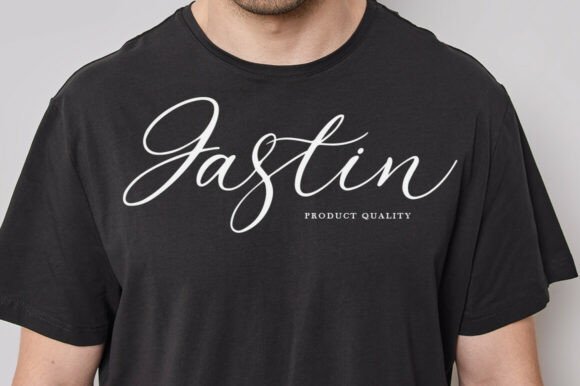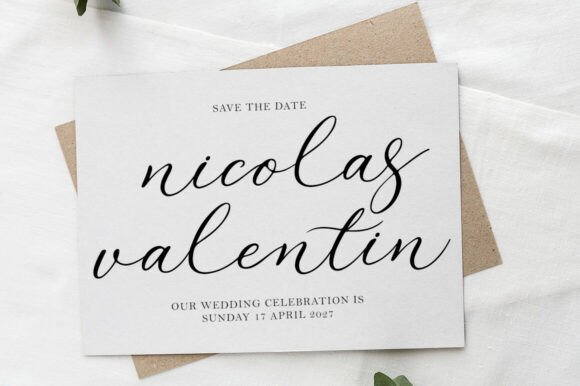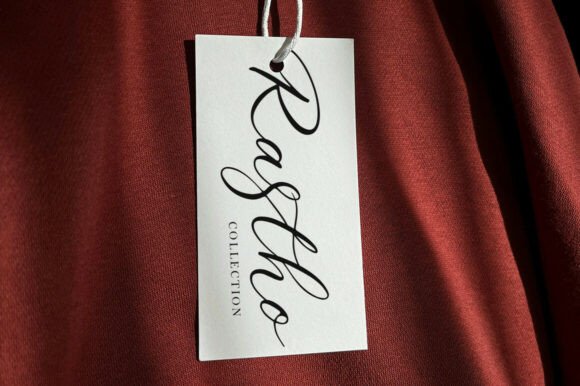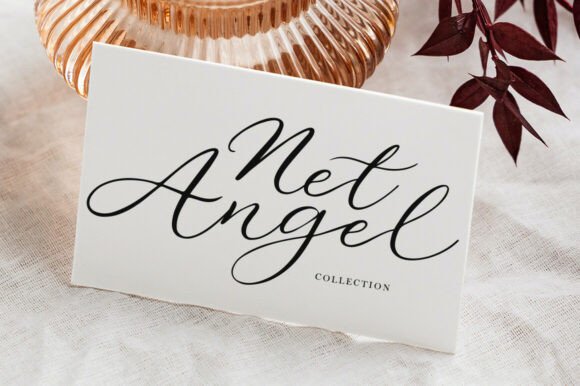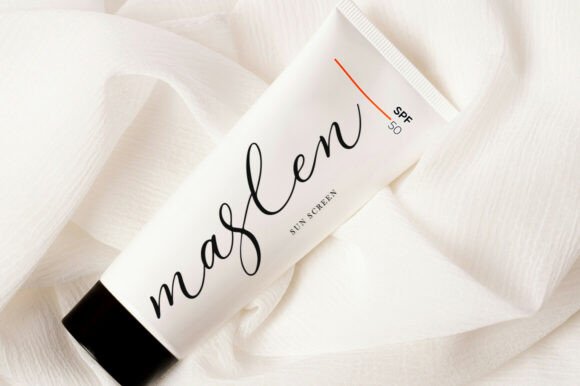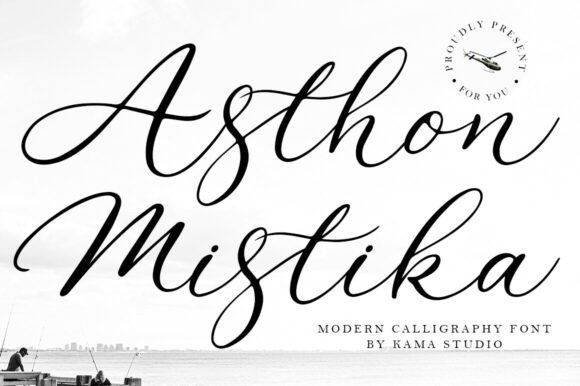
Unleashing Elegance: A Deep Dive into Asthon Mistika Font
Have you ever been in the middle of a design project, and suddenly, it all comes down to finding that one perfect font? I recall working on a wedding invitation project, and my client wanted something that exuded elegance and sophistication. After hours of scrolling through font libraries, I stumbled upon Asthon Mistika, and it was love at first sight! In this article, we’ll explore what makes Asthon Mistika a game-changer for designers, crafters, and creative hobbyists.
The Allure of Asthon Mistika
Asthon Mistika is an exquisite handwritten font that adds an aura of elegance and sophistication to any creative project. Its dramatic swashes and high-contrast ink flow give designs a lively, organic feel. This font breaks away from traditional formal scripts, offering a contemporary and artistic approach to calligraphy.
What I Love About Asthon Mistika
• ✨ Elegant Swashes: The dramatic swashes add a touch of drama and flair to any design.
• ✅ High-Contrast Ink Flow: The varying ink flow gives the font a lively, organic feel.
• 💫 Contemporary Approach: Asthon Mistika breaks away from traditional formal scripts, offering a fresh take on calligraphy.
• 🎨 Versatility: Perfect for signature-style logos, social media graphics, event announcements, and more.
While Asthon Mistika is an exceptional font, there are a few things to keep in mind:
• ⚠️ Legibility at Small Sizes: Due to its high-contrast ink flow, Asthon Mistika may not be legible at very small font sizes.
• 🤔 Pairing with Other Fonts: As with any script font, pairing Asthon Mistika with other fonts requires some care to maintain visual harmony.
The Story Behind Asthon Mistika
While the true story behind Asthon Mistika remains a mystery, it’s easy to imagine that it was created by a designer who wanted to push the boundaries of traditional calligraphy. Perhaps they drew inspiration from ancient manuscripts, modern street art, or even nature itself. Whatever the inspiration, Asthon Mistika is a true masterpiece.
Author Kama Studio
What makes Asthon Mistika unique? Its dramatic swashes, high-contrast ink flow, and contemporary approach to calligraphy set it apart from other fonts.
Is Asthon Mistika difficult to read? While Asthon Mistika is a script font, its high-contrast ink flow and elegant swashes make it surprisingly legible, even at larger font sizes.
With Asthon Mistika, your typography becomes a centerpiece of energy and flair. Perfect for giving a personal touch to logos, wedding invitations, photography watermarks, and contemporary websites, it paints every letter with charm and exclusivity. Infused with a distinctive and timeless appeal, Asthon Mistika can transform your designs from ordinary to spectacular.